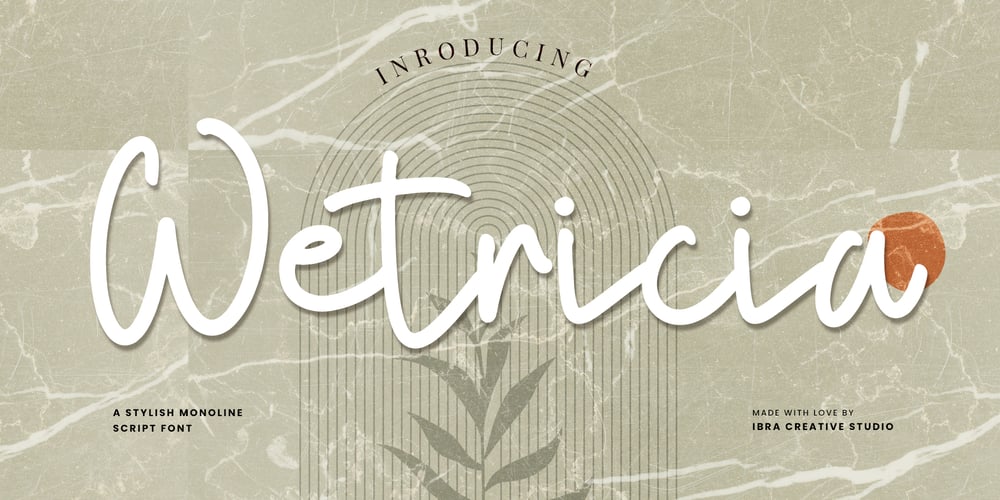
Wetricia Font Family was designed by Roisatul Azizah and published by IbraCreative. Wetricia contains 1 styles and family package options. Wetricia is a captivating monoline script font that effortlessly blends elegance with modern style. Its sleek, single-weight line design exudes a sense of sophistication, making it a perfect choice for projects that demand a refined aesthetic. The fluidity of its curves and the uniformity of its strokes create a harmonious balance, resulting in a graceful and timeless script. Wetricia’s individual characters flow seamlessly into one another, producing a cohesive and smooth appearance. Whether used for invitations, branding, or any design endeavor seeking a touch of class, Wetricia stands out as a chic monoline script font that adds an air of sophistication to any typographic composition.